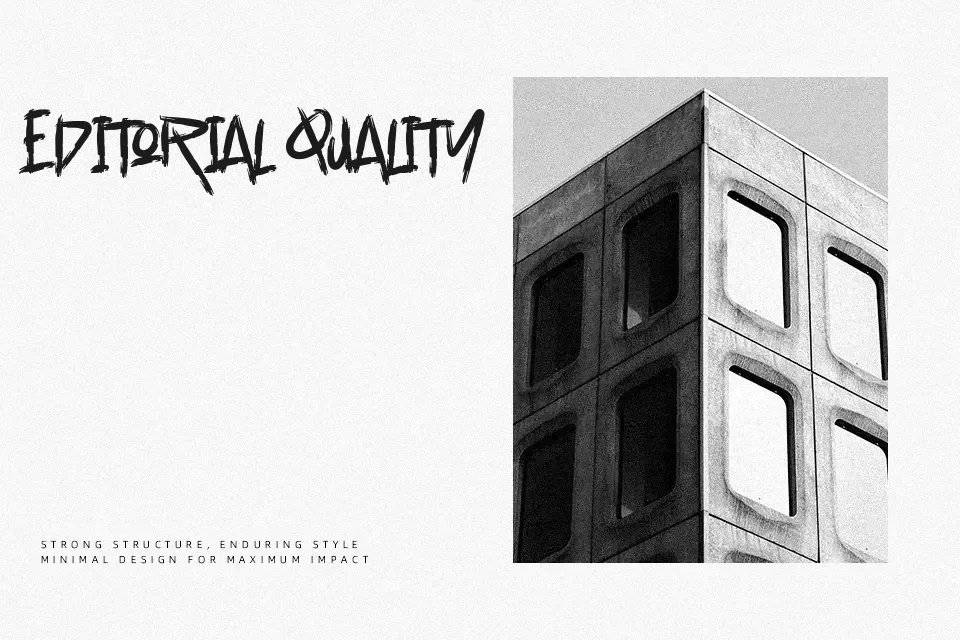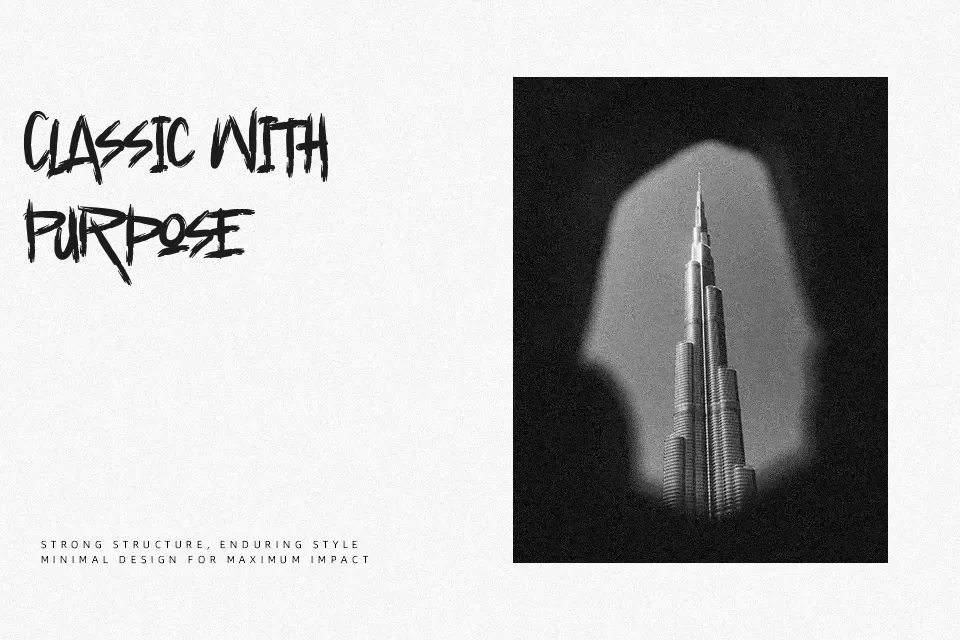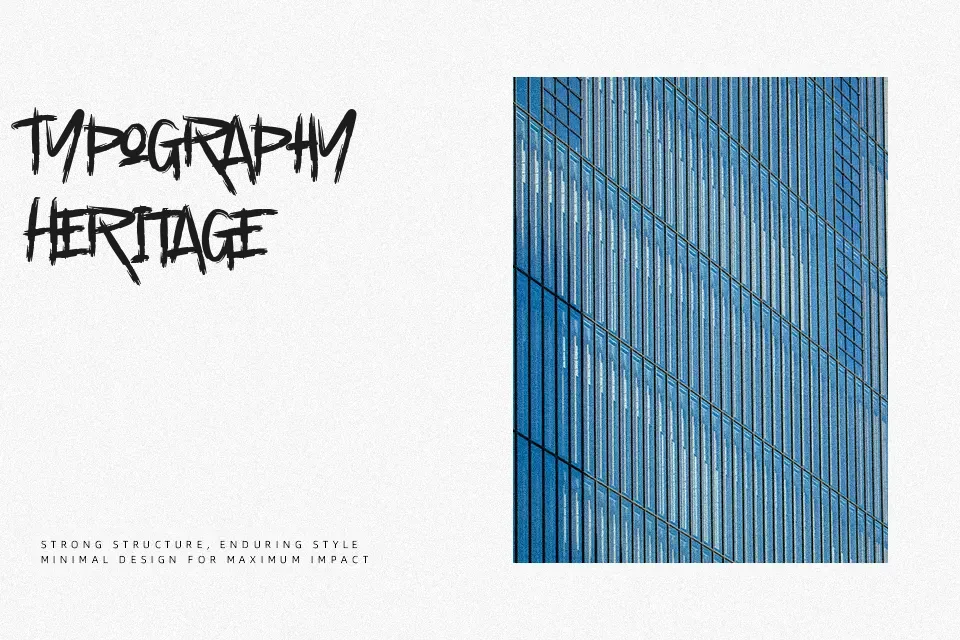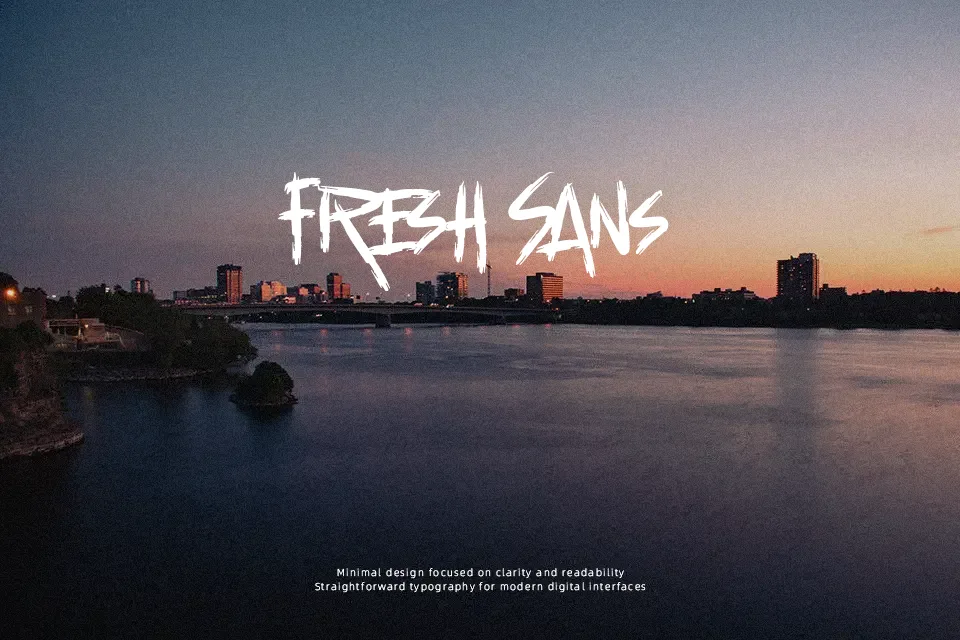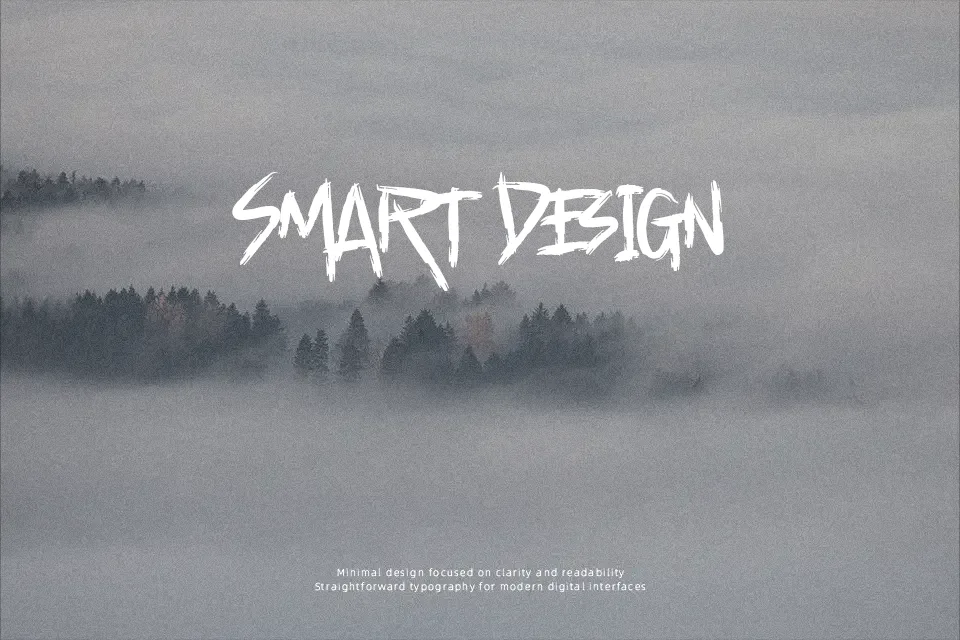
Antipathic Font
Antipathic is a scary trash display font with irregular, torn-looking strokes and harsh angles that feel raw and confrontational. The letters are dense, tightly spaced, and heavily textured, so every word reads like a distressed sticker or spray-painted tag. It suits horror movie art, underground music flyers, slasher-themed game covers, and Halloween branding that calls for a hostile, chaotic tone rather than something polished. Because of its intense texture and low legibility at small sizes, it struggles in body copy, UI, or any context where quick reading matters. Antipathic works best when you keep text short and use it as a visual punch rather than a primary reading typeface.
horror movie posters and key art
underground or metal band logos and flyers
halloween party titles and signage
dark game covers and splash screens
long paragraph text or body copy
interfaces, captions, or small-size usage
formal corporate or editorial documents
minimal, clean brand identities
Perfect for advertising, branding, and halloween, with a bold and decorative style.